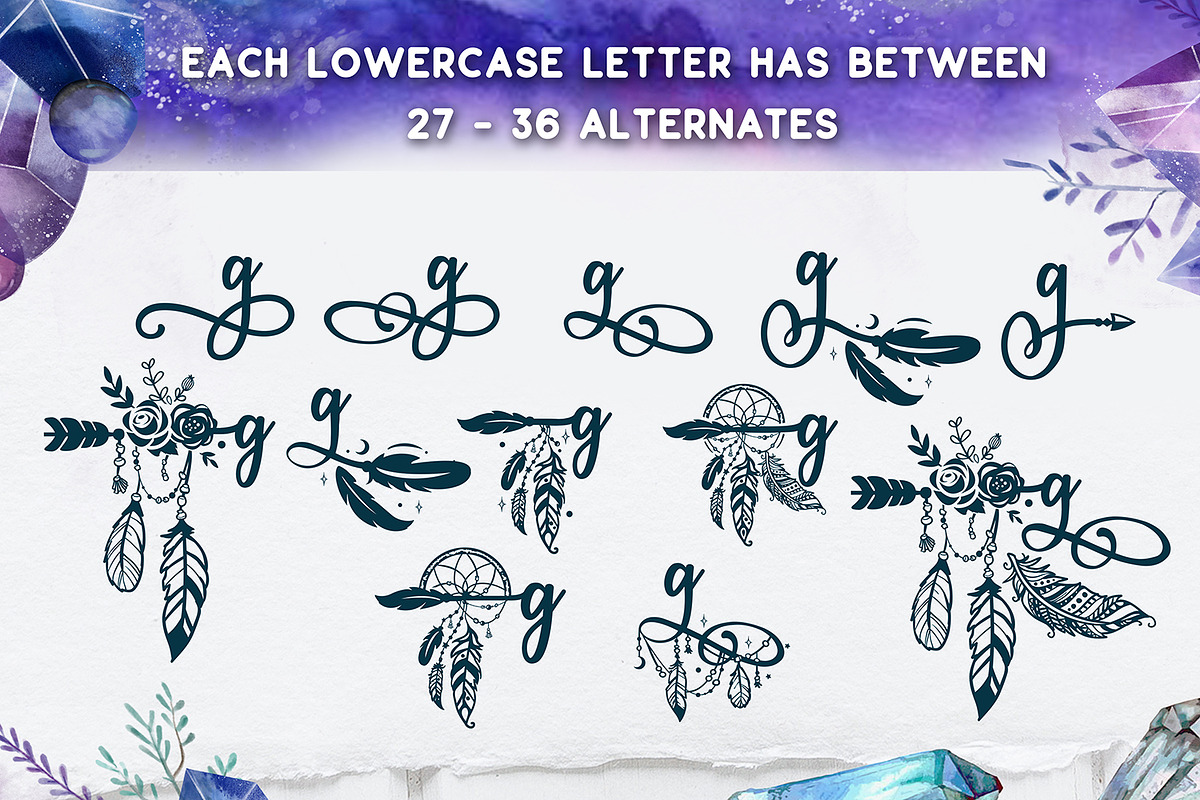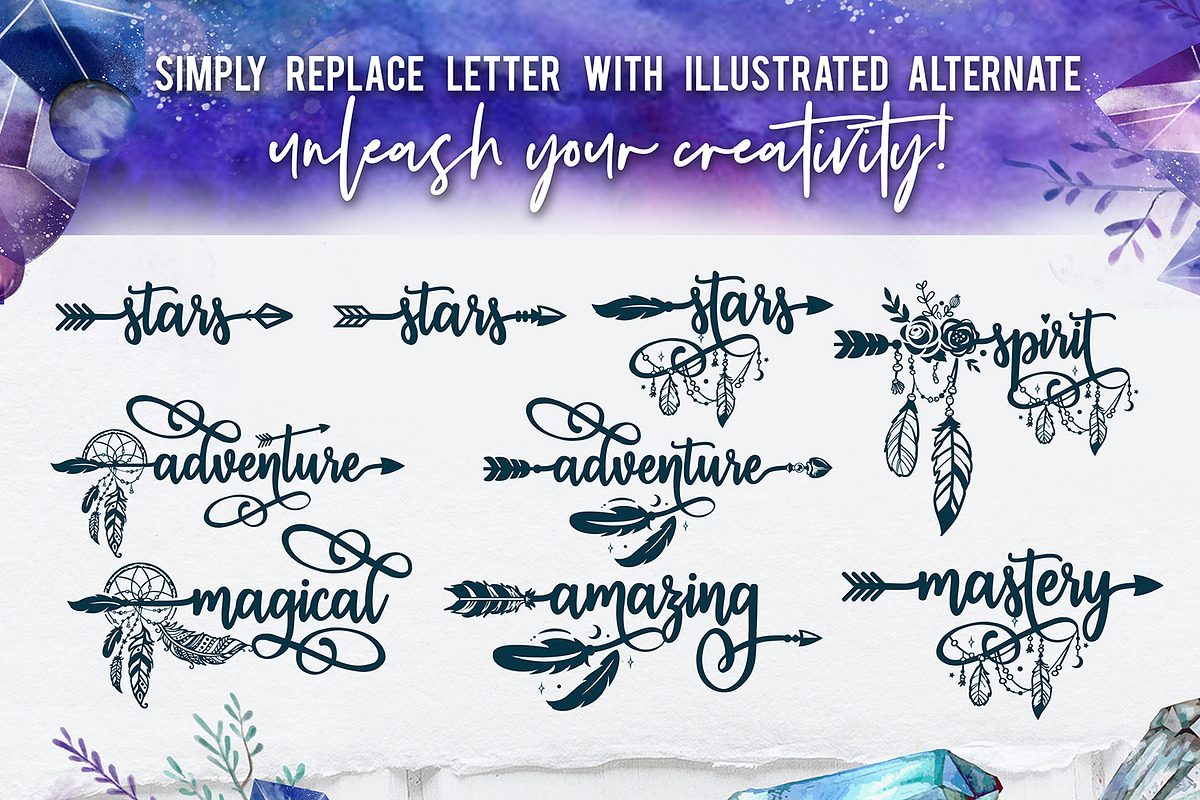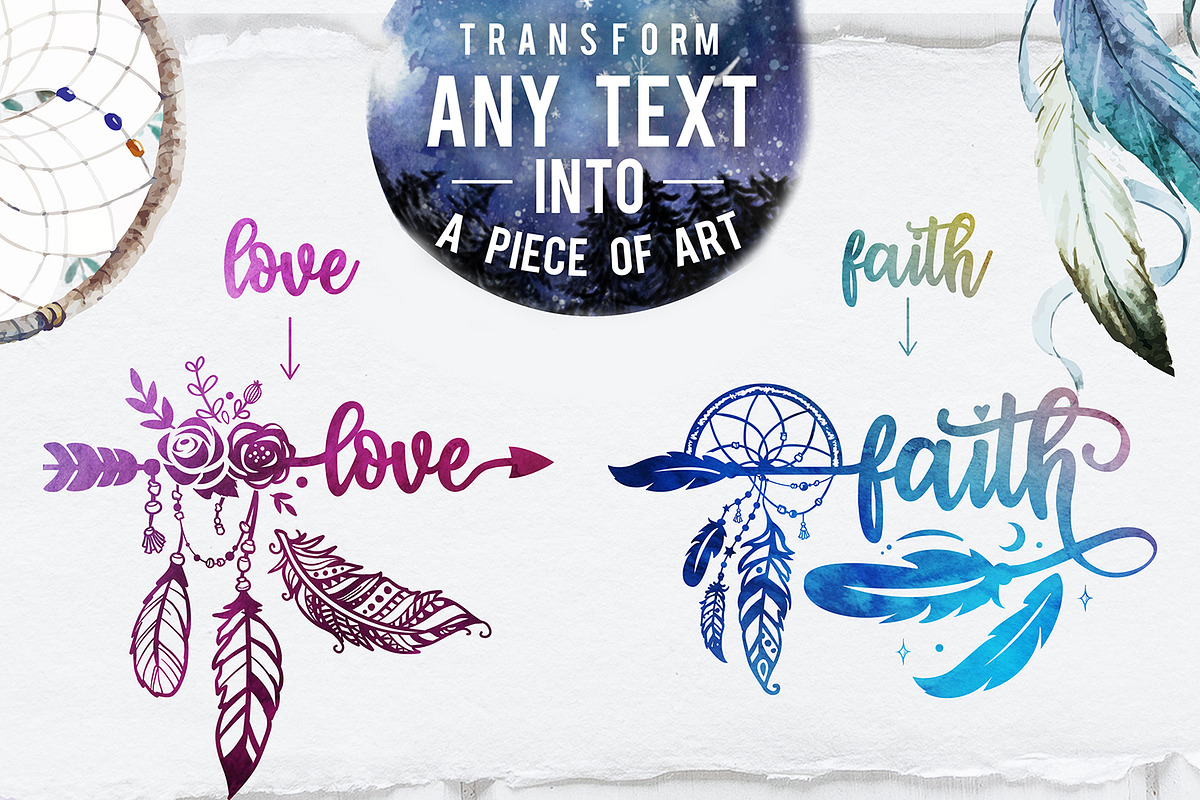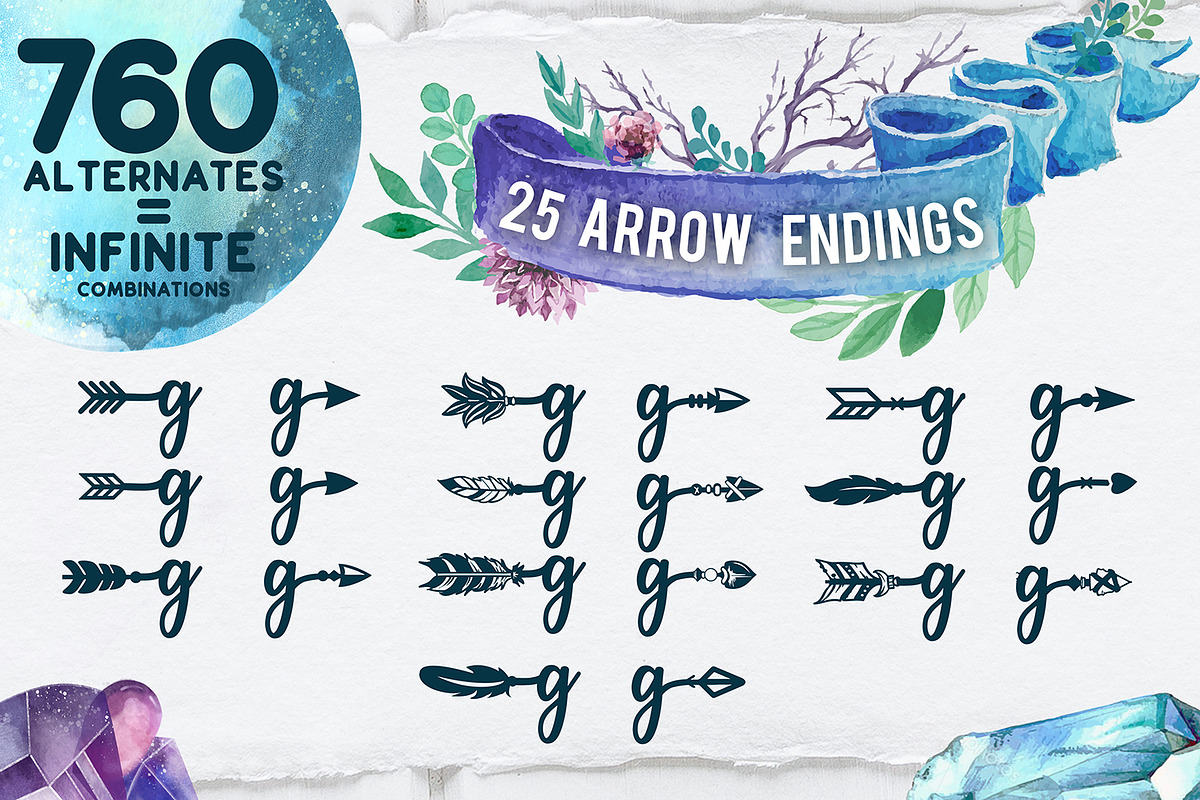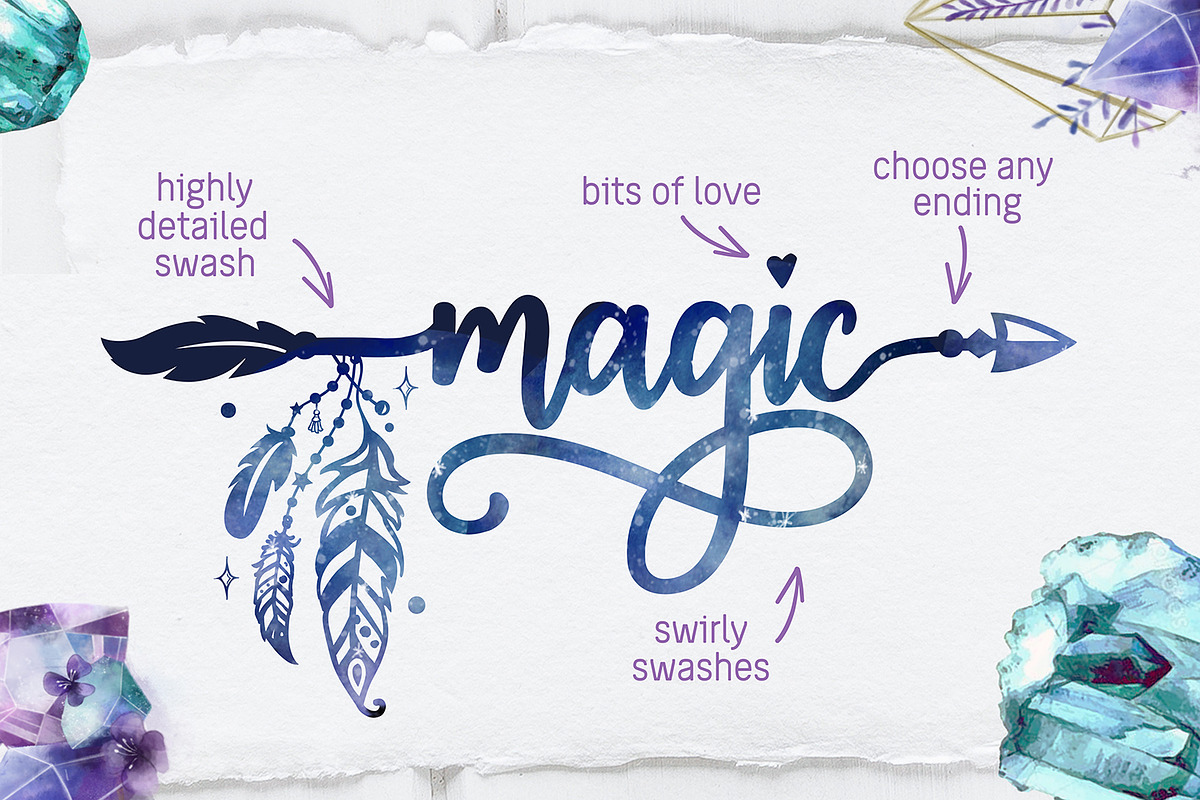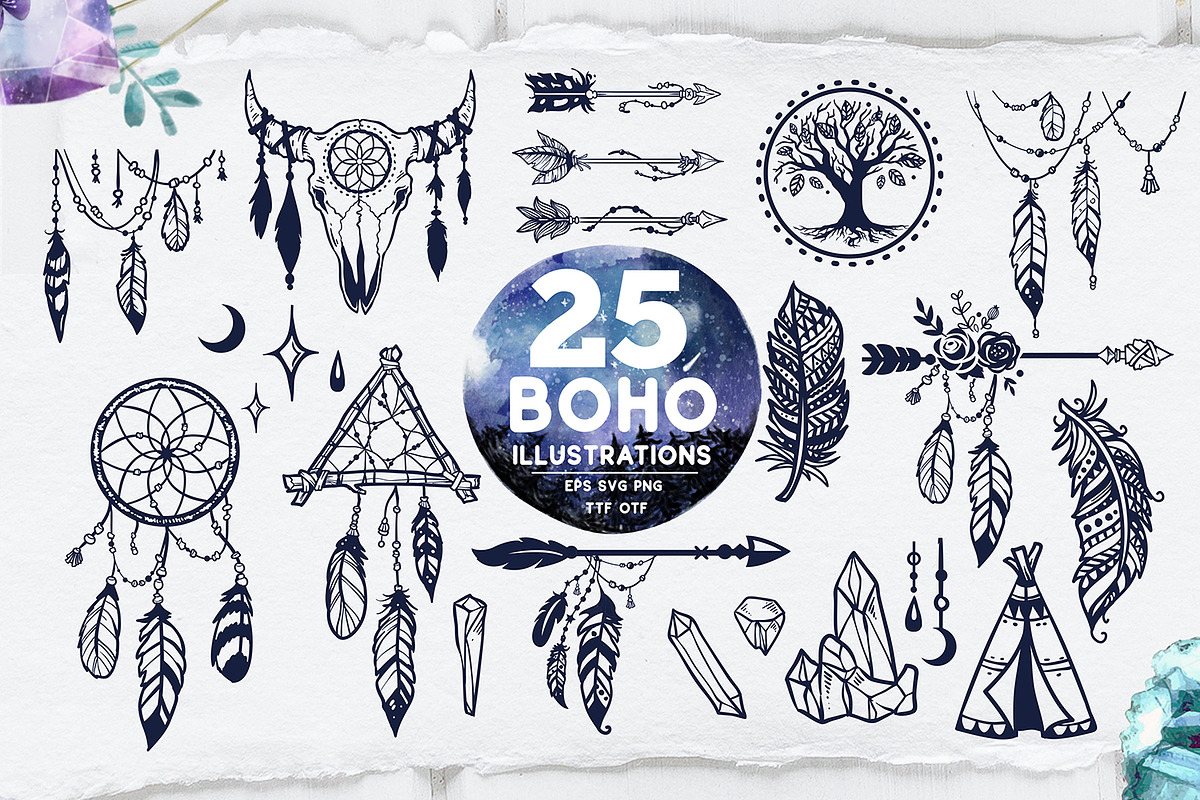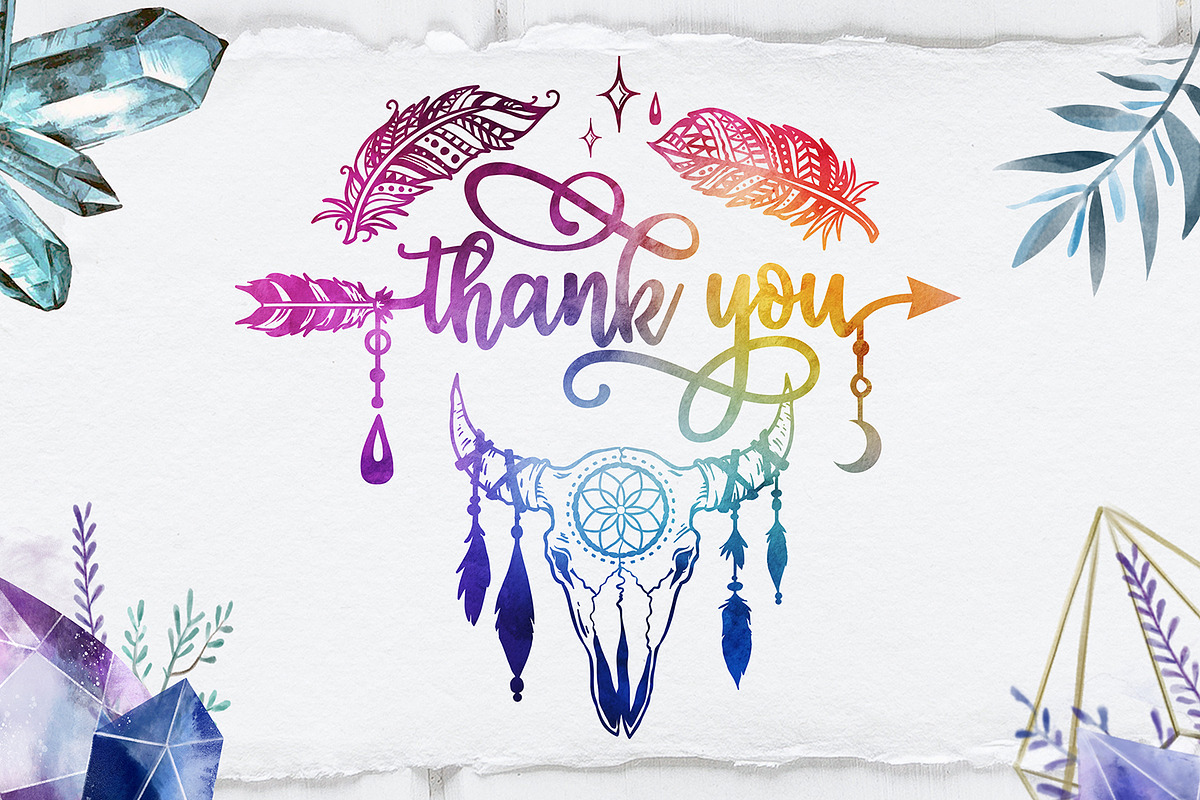
Bohema Spirit font and illustrations
Bohema Spirit is a script arrow font containing more than 750 alternates, so easy to play with, and the best part: you also have lots of boho illustrations to play with, not to mention the diversity of arrows that you can switch at the beginning and end of every word!
The best tool if you want to create t-shirt designs, mug designs, logos or just play around.